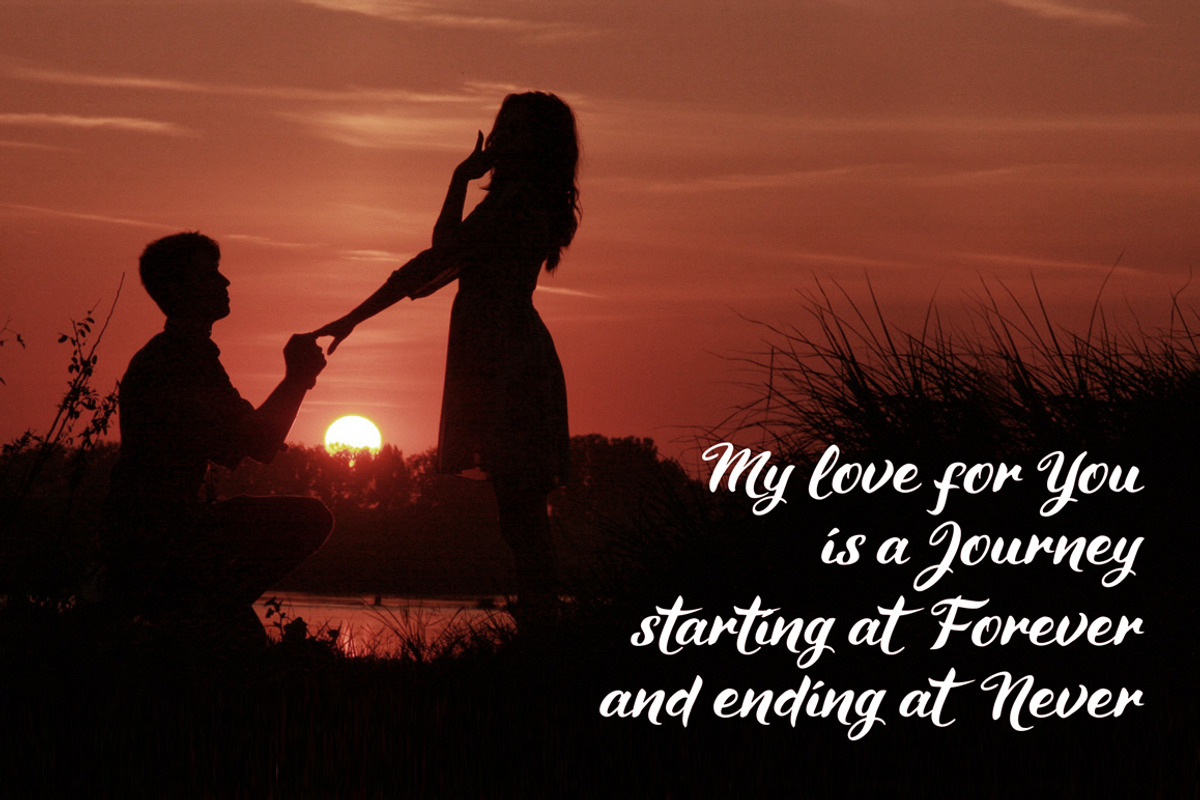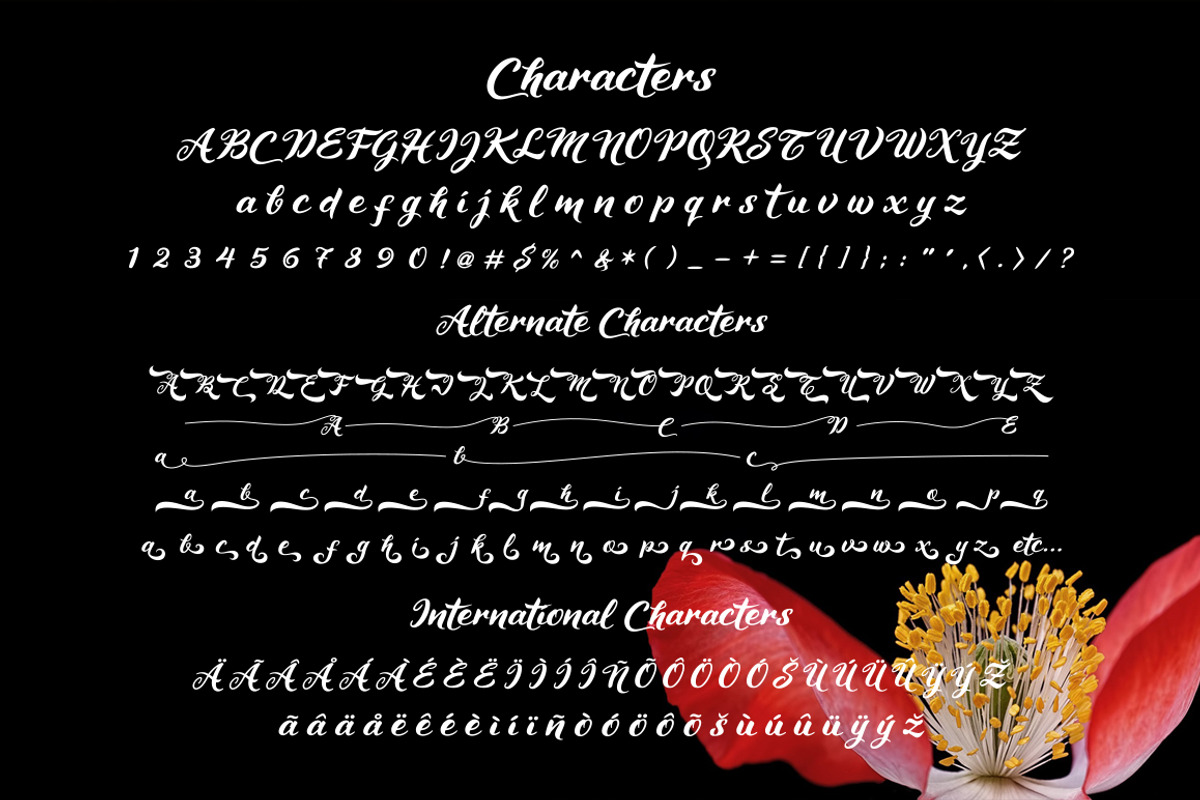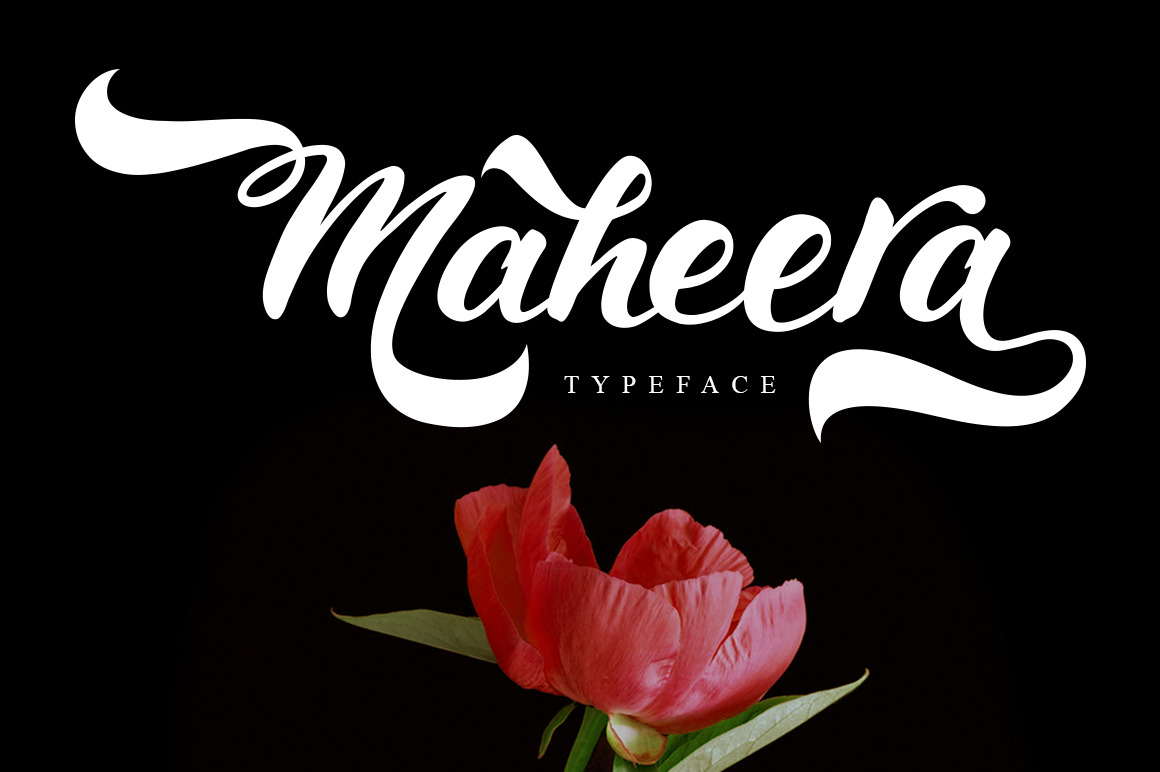
Maheera Font
Maheera font is a handwriting script style font. This font have many glyphs alternative variation. 2 capital characters variation and 6 small characters variation. Maheera font beautifully and looks like freshly handmade for wedding card, logotype, branding project, website header, product packaging, fashion design and Your any creative project.
Maheera font features : Characters set A-Z, a-z, Numerals & Puctuations (OpenType Standard), Accents (Multilingual characters), Alternates, Ligatures, and Swash.